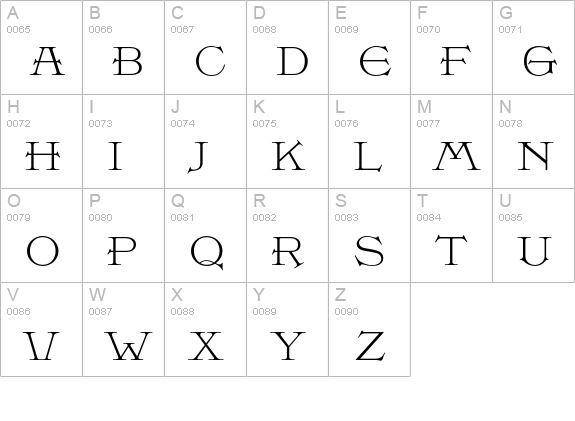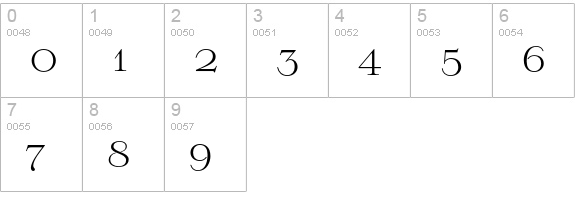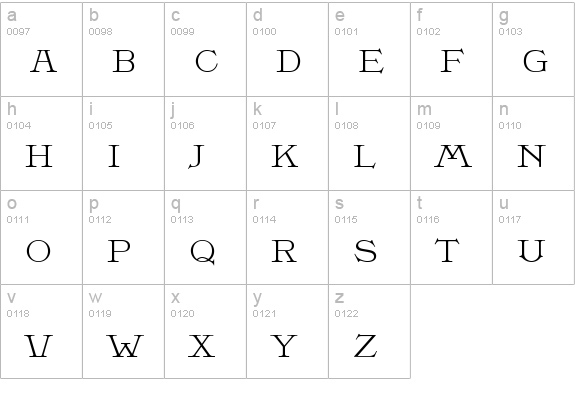
The MFC Damask Basic font is a timeless and elegant typeface that exudes sophistication and grace. With its intricate detailing and classic design, this font is perfect for adding a touch of luxury to your projects. Whether you are working on invitations, branding materials, or editorial designs, the MFC Damask Basic font will surely make a statement. Best of all, this exquisite font is available for free download at FontsMarket.com. Embrace the beauty and versatility of the MFC Damask Basic font and elevate your designs with its sophisticated charm.